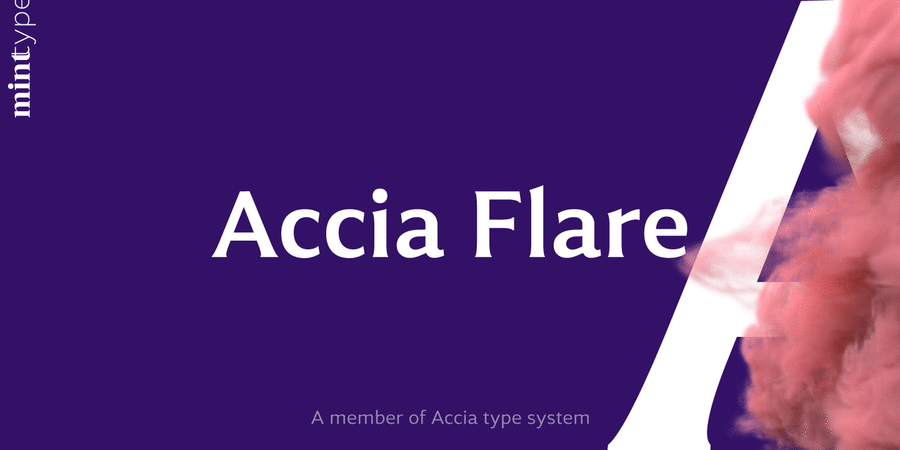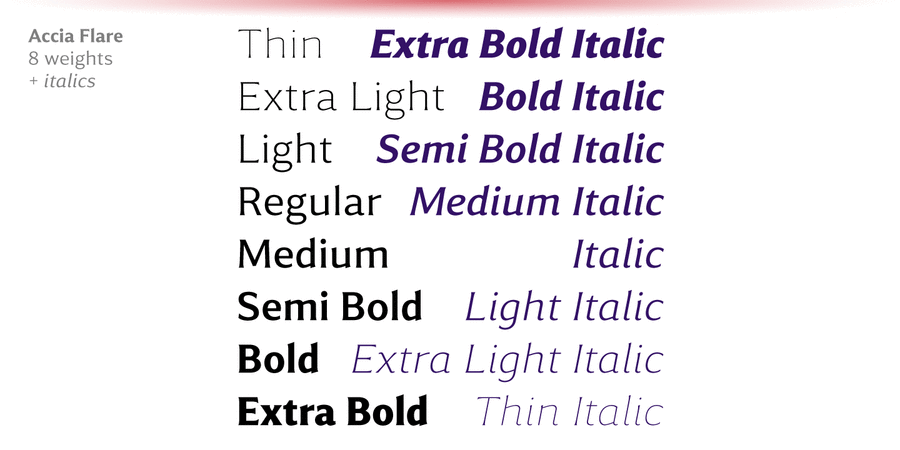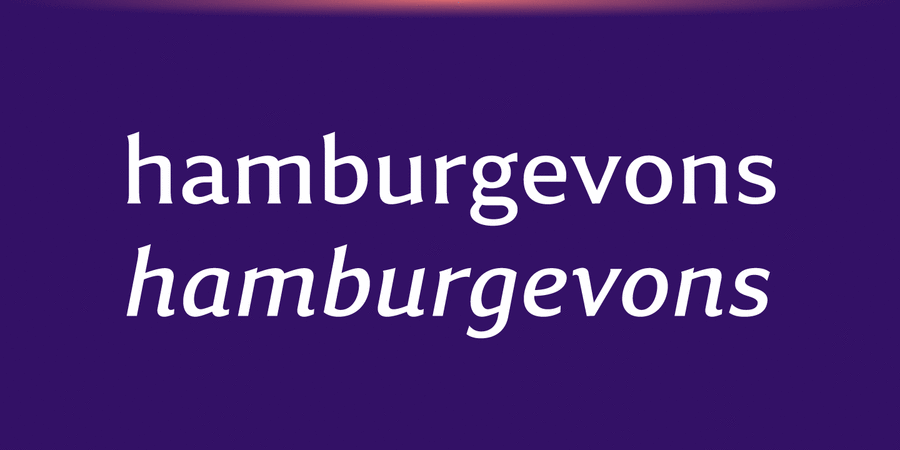
About Accia Flare is an elegant glyphic typeface with large x-height and low contrast. Its subtle curviness will create a tender but notable image in packaging applications. The font family contains 8 weights from Thin to Extra Bold, with matching true italics. It supports extensive language support including Cyrillic, as well as numerous OpenType features such as small caps, ligatures, several sets of figures, case-sensitive punctuation, ordinals. Accia Flare is a member of Accia Type System. It encompasses five typefaces ranging from sans-serif to expressive serif, giving you the possibility to create sophisticated cohesive designs. Accia Type system consists of Accia Sans, Accia Flare, Accia Piano, Accia Moderato, and Accia Forte. The typeface was designed by Andriy Konstantynov and released in Mint Type foundry in 2021.
Associations for font family Accia FlareTypeface personality and character: